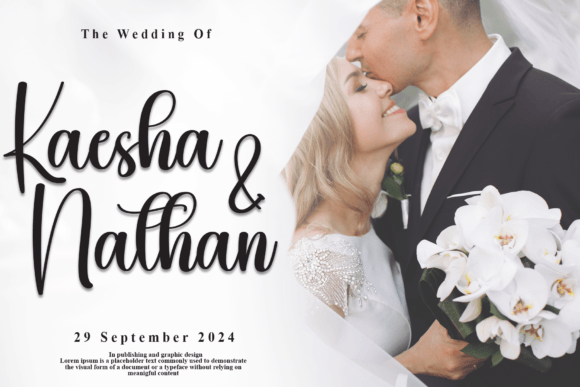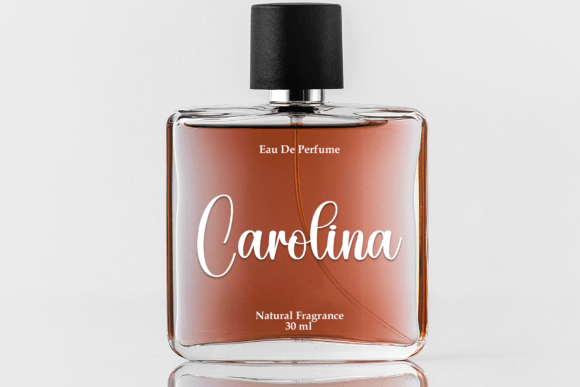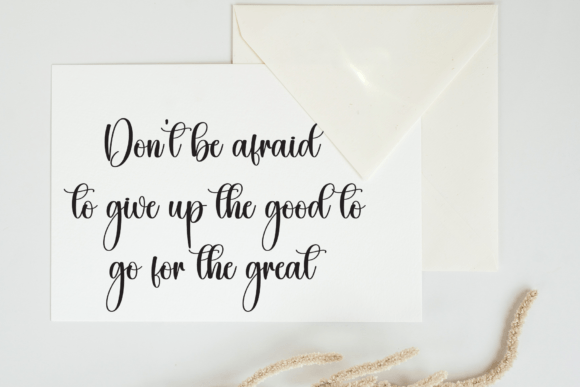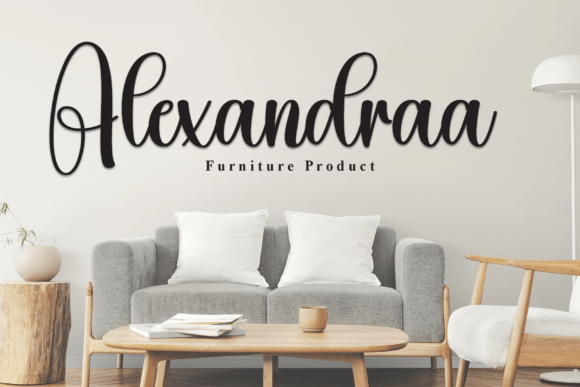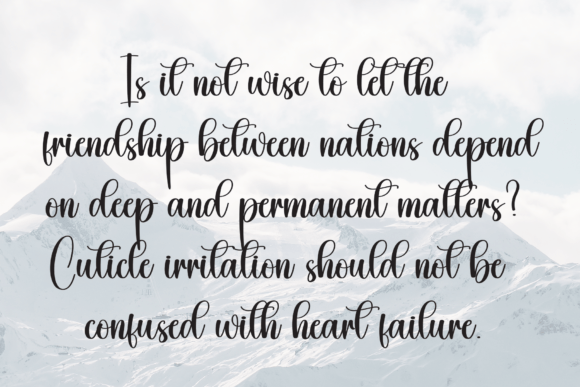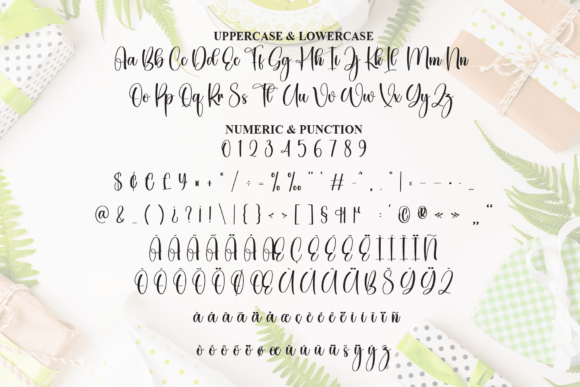
The Ultimate Guide to Birthday Font: Adding a Personal Touch to Celebrations
Birthdays are special occasions that deserve a personal touch. Whether you’re designing a custom birthday card, invitation, or decoration, the right font can make all the difference. That’s where the Birthday font comes in – a fun, handwritten style that’s perfect for adding a warm, friendly touch to any celebration.
What is the Birthday Font?
The Birthday font is a playful, cursive typeface that’s designed to evoke the feeling of a handwritten message. Its smooth lines and playful curves give it a cheerful, approachable vibe that’s ideal for birthday-themed designs. With its unique character and whimsical flair, this font is sure to make your birthday creations stand out.
Characteristics of the Birthday Font
So, what makes the Birthday font so special? Here are a few of its key characteristics:
- Playful curves: The Birthday font features smooth, flowing curves that give it a playful, organic feel.
- Handwritten style: With its irregular letterforms and varying line widths, the Birthday font has a distinctly handwritten look.
- Cheerful vibe: The font’s bright, airy feel makes it perfect for creating happy, uplifting designs.
Uses for the Birthday Font
The Birthday font is incredibly versatile, making it suitable for a wide range of design projects. Here are some ideas to get you started:
- Birthday cards: Create custom birthday cards with a personal touch using the Birthday font.
- Invitations: Design eye-catching birthday invitations that set the tone for a fun celebration.
- Decorations: Use the Birthday font to create festive decorations, such as banners, garlands, and gift tags.
- Social media graphics: Add a playful touch to your birthday-themed social media graphics, such as Facebook posts and Instagram stories.
Tips for Using the Birthday Font
To get the most out of the Birthday font, follow these tips:
- Keep it simple: Don’t overcomplicate your design – the Birthday font works best when used in a simple, straightforward way.
- Experiment with colors: Try pairing the Birthday font with bright, bold colors to create a festive look.
- Mix and match: Combine the Birthday font with other fonts to create a unique, layered look.
The Birthday font is a fun, playful typeface that’s perfect for adding a personal touch to birthday celebrations. With its smooth lines, playful curves, and cheerful vibe, this font is sure to make your designs stand out. Whether you’re a designer, crafter, or simply someone who loves to celebrate, the Birthday font is a great addition to your toolkit.